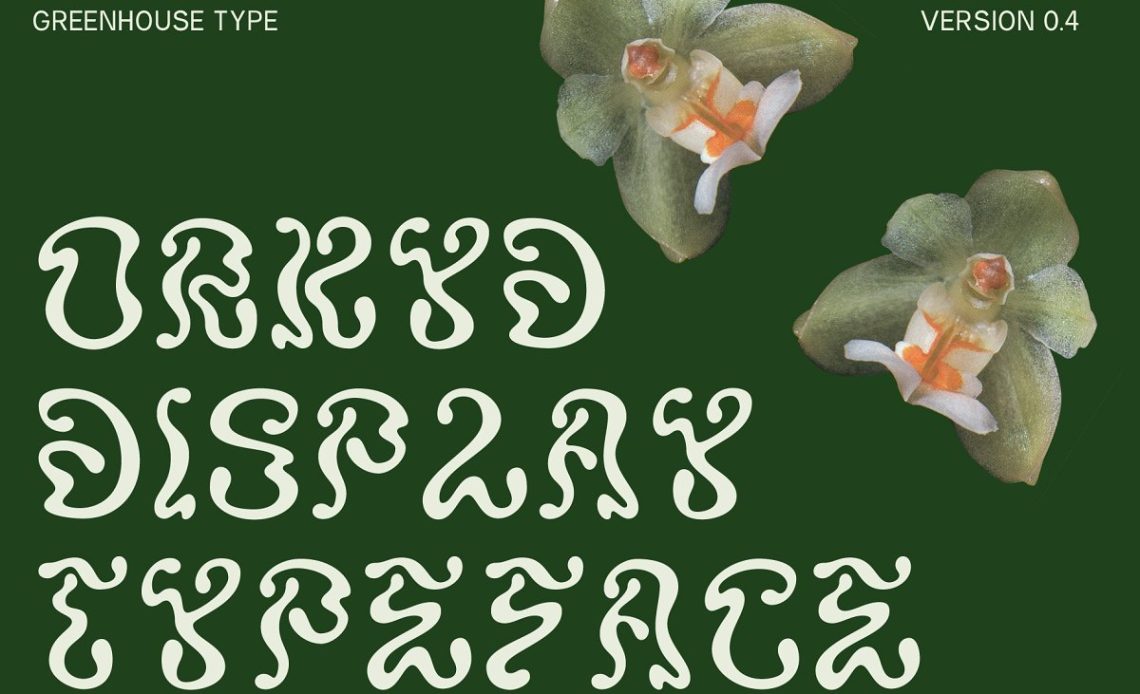
Introducing ORKYD Display Font, a captivating and innovative addition to your font collection. Created by the talented Anna Sing, this experimental typeface draws inspiration from the enchanting world of blooming orchids and the orchid mania that captivated the 90s.
Just like the mesmerizing flower itself, ORKYD is a bold and striking font that demands attention. It's the perfect centerpiece for any design project, ensuring that your message will be conveyed with style and impact.
What sets ORKYD apart is its origin story, rooted in the mystery of the grocery store orchid. This houseplant is always up for sale, yet rarely seen in homes. Much like the elusive orchid, this font is a rare gem that will elevate your creative endeavors to new heights.
Anna Sing's artistic experimentation with a parallel pen has resulted in letterforms that beautifully mimic the symmetry of an orchid's delicate petals. Each character represents the unique beauty and elegance of this beloved houseplant.
When you choose ORKYD, you're not just getting a font – you're embarking on a visual journey. Its captivating curves and ornate details will effortlessly convey emotion and personality in your designs.
Whether you're designing a striking logo, eye-catching posters, or stunning social media graphics, ORKYD will be your secret weapon. It's the font that will make your brand stand out from the crowd and leave a lasting impression on your audience.
With ORKYD, you have the power to evoke a sense of wonder and mystique, just like the orchids that once took the world by storm. Let this font be the catalyst for your creativity and watch as your designs blossom into something extraordinary.